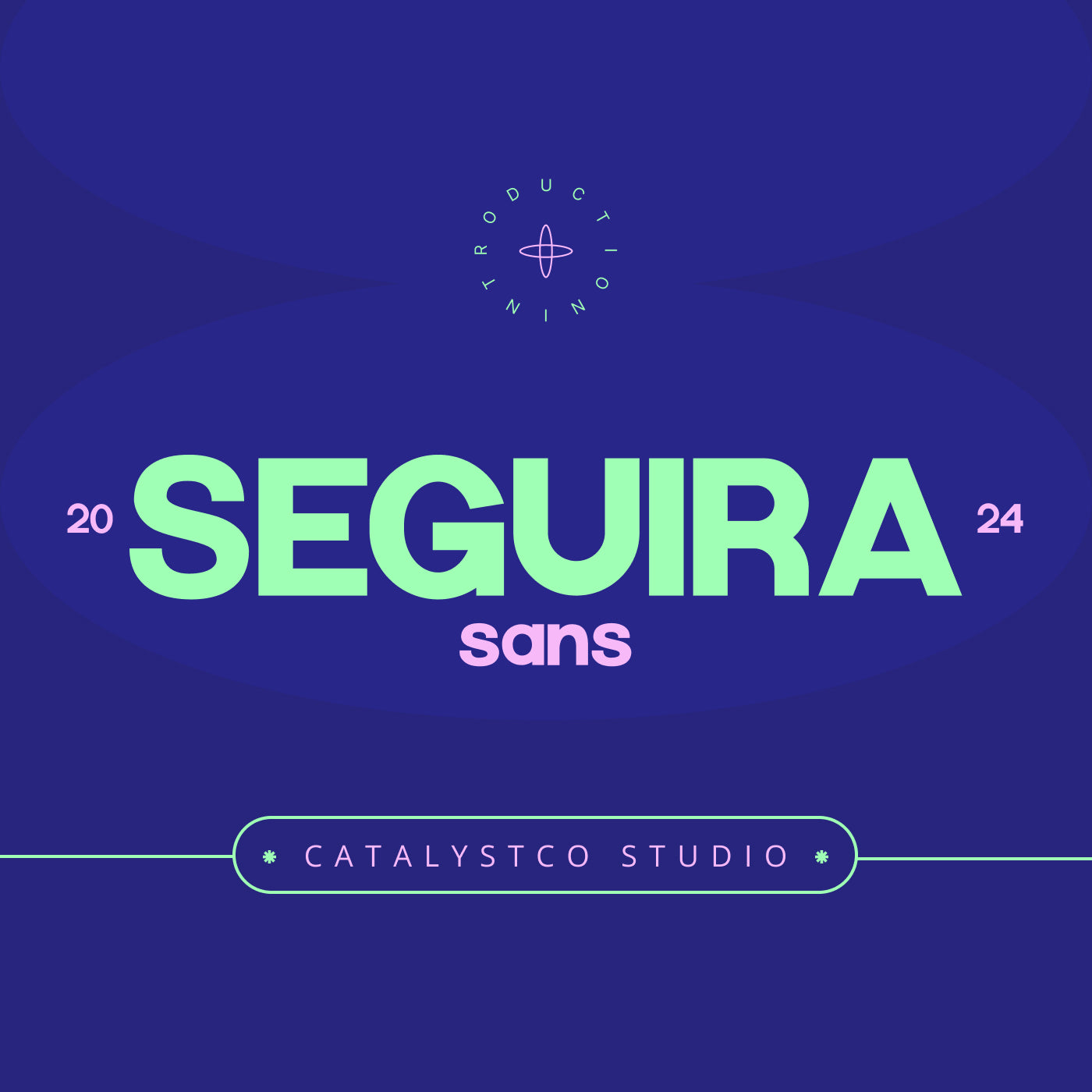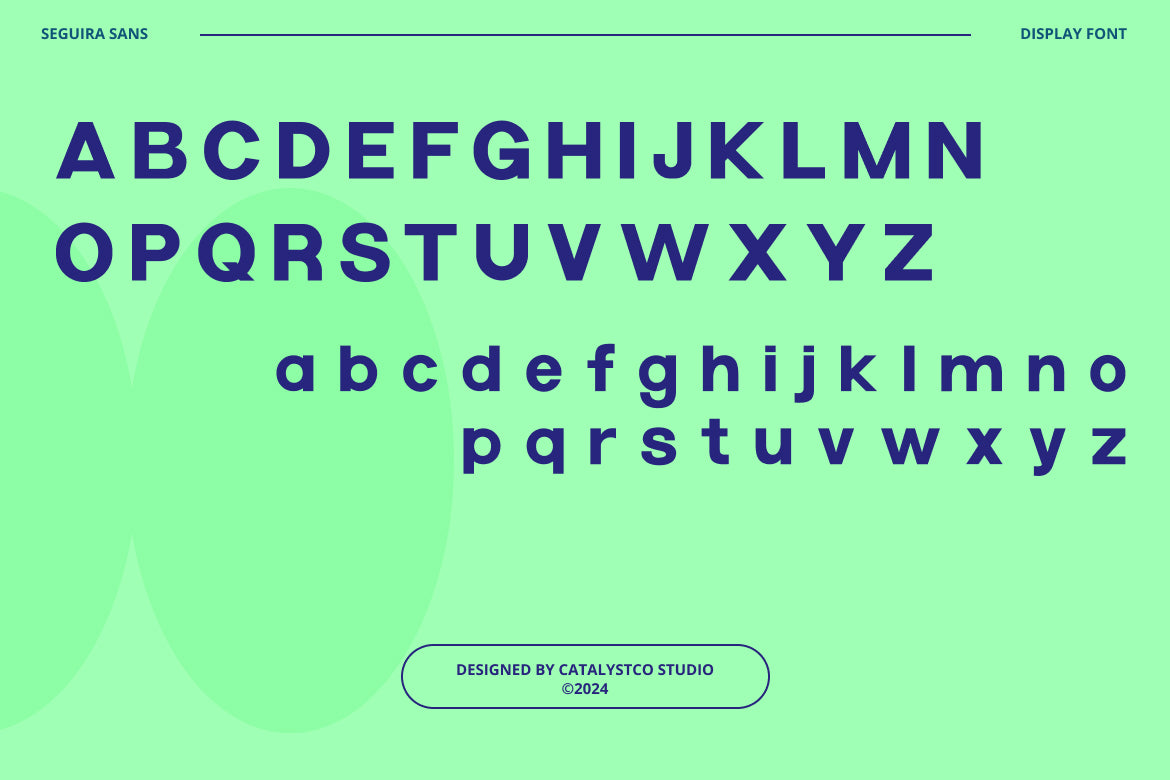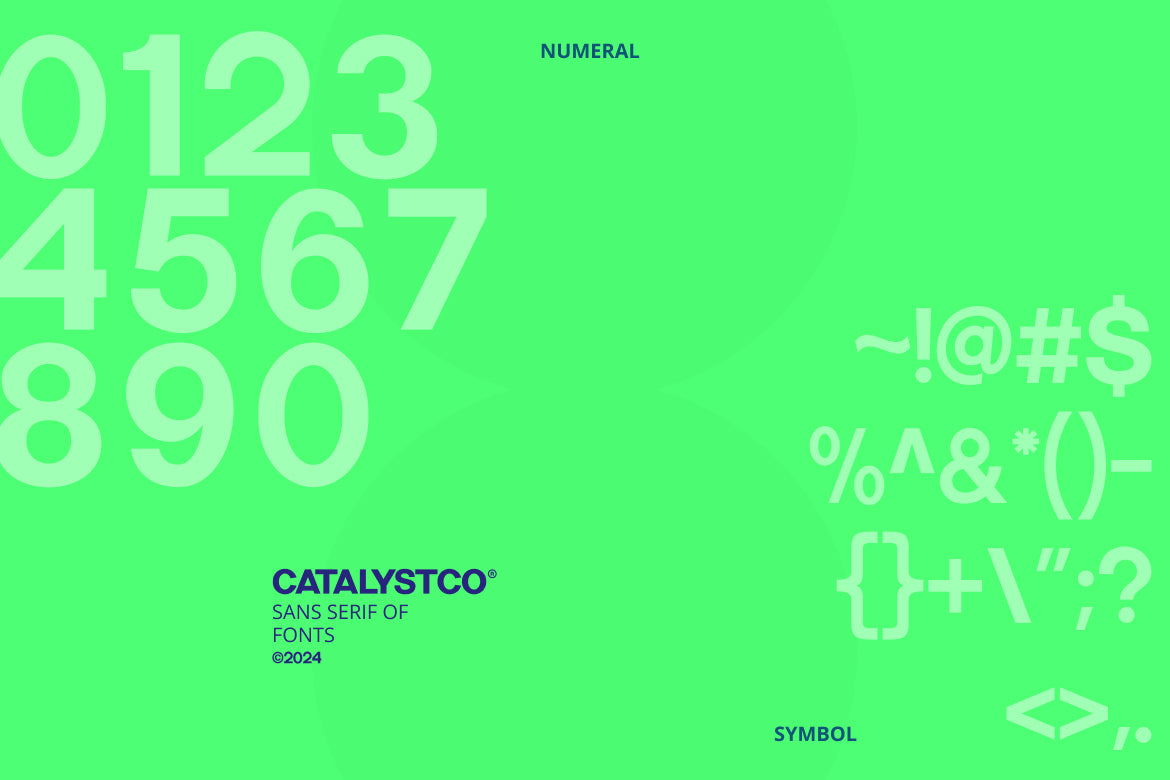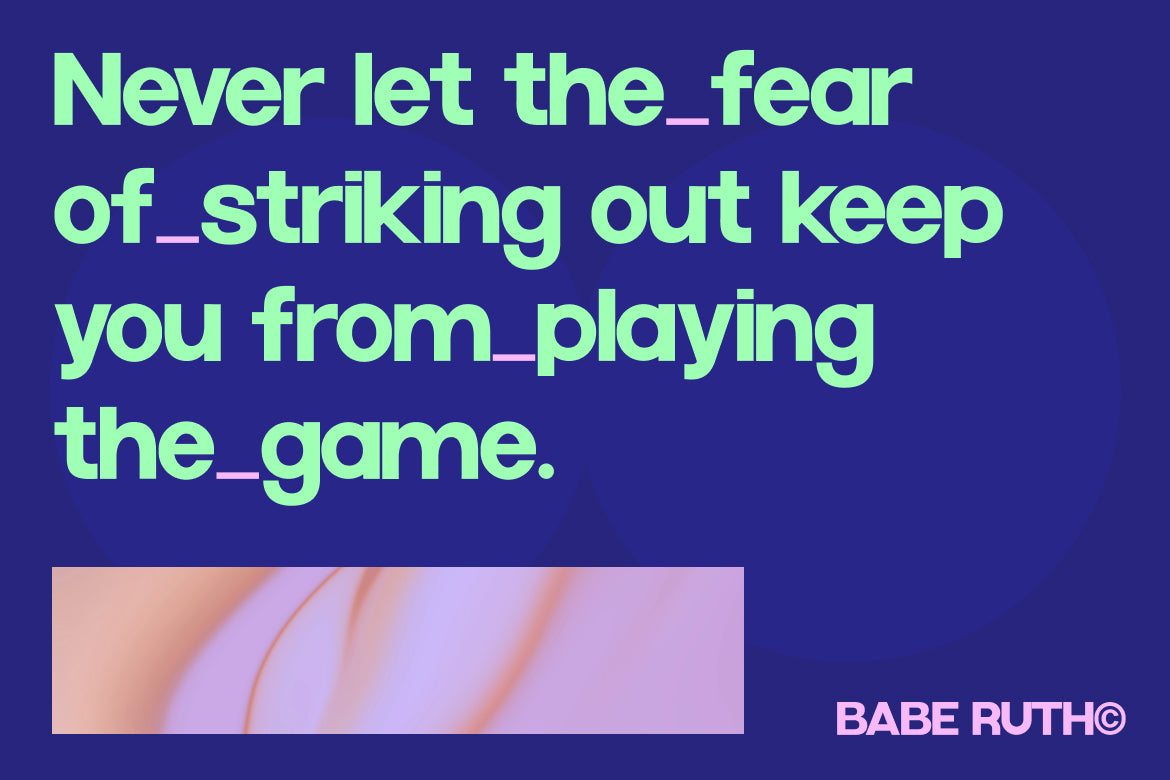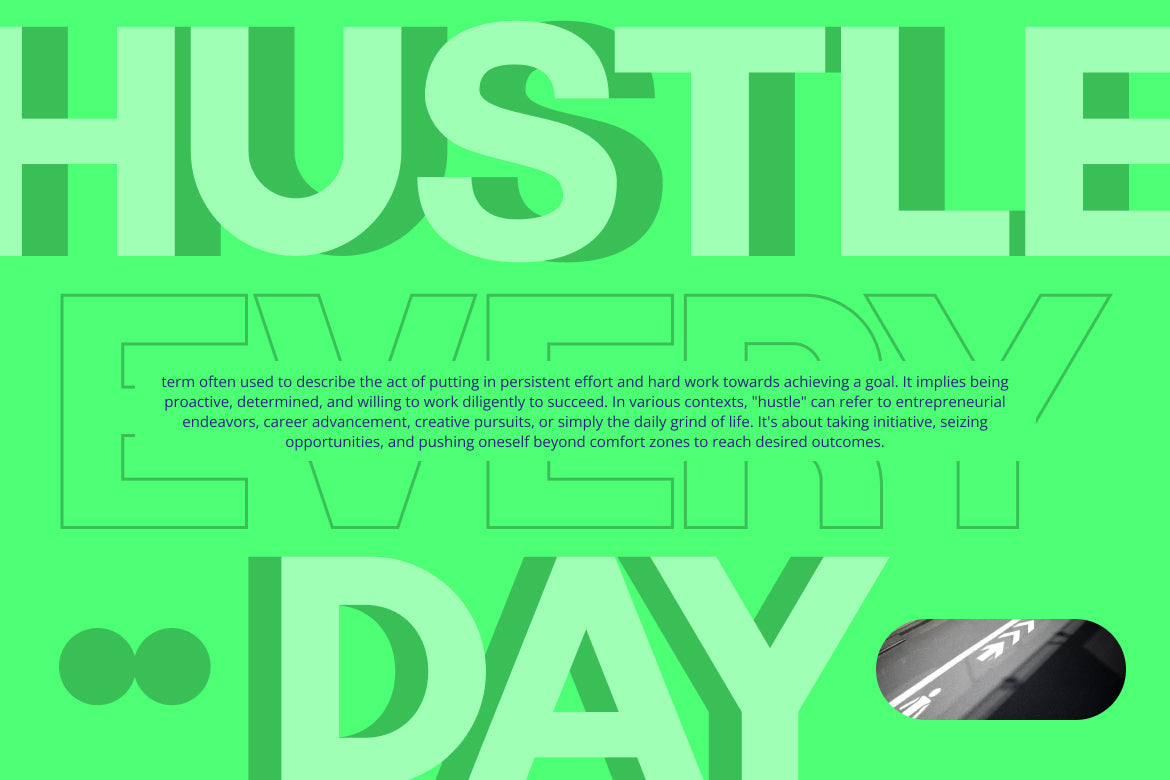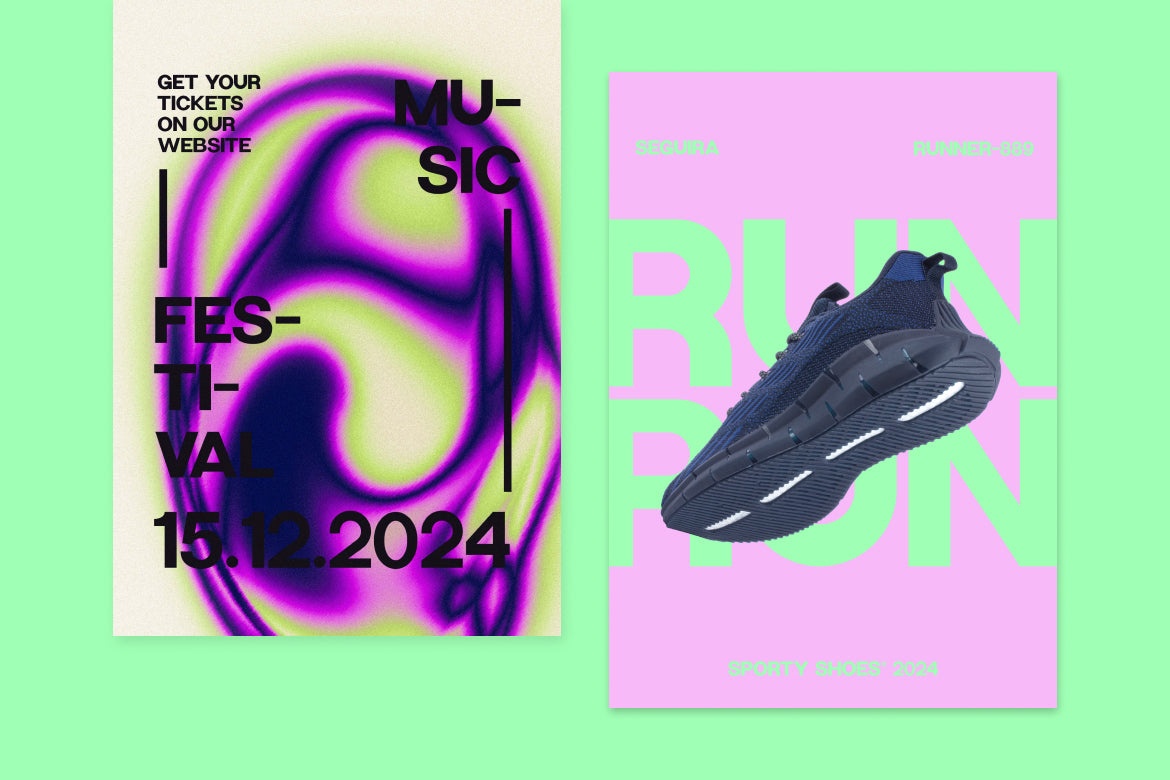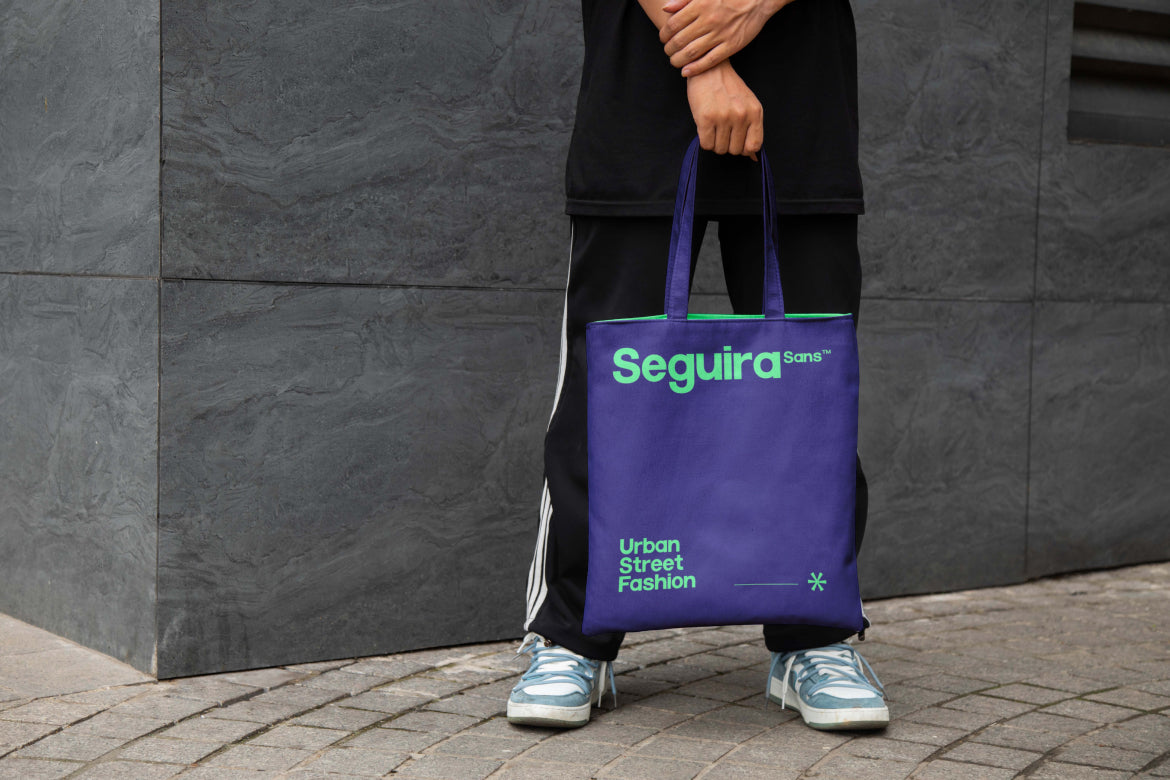
Seguira Sans Serif Font
Seguira Sans Sans Serif Font is a powerful geometric sans-serif with bold confidence and a modern edge. Its clean structure and solid weight give it a futuristic and assertive tone, perfect for impactful digital and print visuals. Crafted for high-impact visual design, Seguira Sans excels in contemporary brand identities, tech-oriented marketing, fashion-forward campaigns, and bold social media visuals. Ideal for designers who want their type to be both stylish and unmistakably strong. With wide-set uppercase letters and smoothly curved lowercase glyphs, Seguira Sans strikes a fine balance between assertive geometry and friendly minimalism. Its consistent weight and modular construction make it both visually pleasing and highly legible in large formats.
Seguira Sans is a geometric sans-serif font featuring wide uppercase letters, curved lowercase glyphs, and a consistent bold weight. It includes TTF, OTF, and WOFF formats with uppercase and lowercase characters, ligatures, alternates, numerals, and punctuation.